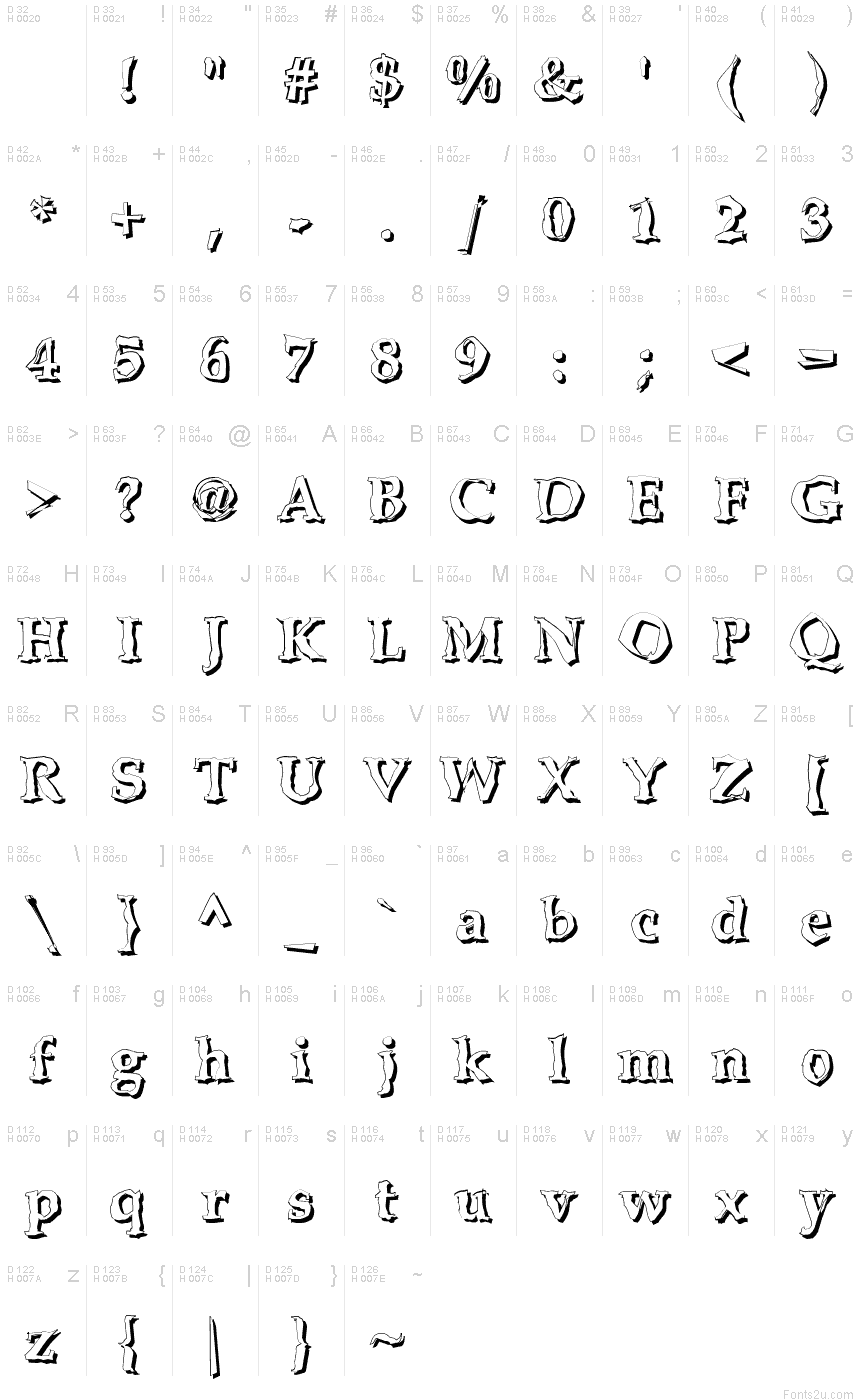
BONKERS - shadow
BONKERS - shadow font by Bonkers is a free distorted display typeface that looks like it’s been ripped from a mischievous comic book. Each letter lurches and wobbles with torn edges, while the inky black shadow underneath makes the forms pop like cut-out cardboard. The BONKERS shadow family feels scratchy, loud, and a little unhinged-great when you want your title to shout rather than whisper.
Using BONKERS - shadow, you can crank up the drama on Halloween posters, haunted house signage, quirky horror-comedy logos, zine covers, party flyers, and bold YouTube thumbnails. This free font thrives at big sizes where its jagged outlines and chunky shadows stay crisp. Pair it with a plain, narrow sans serif for body copy to keep things readable while the headline goes gleefully off the rails.